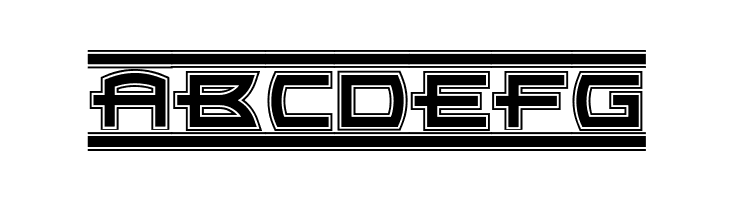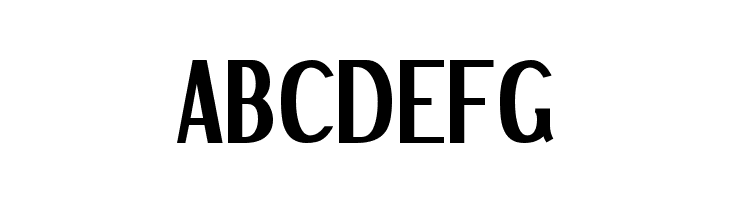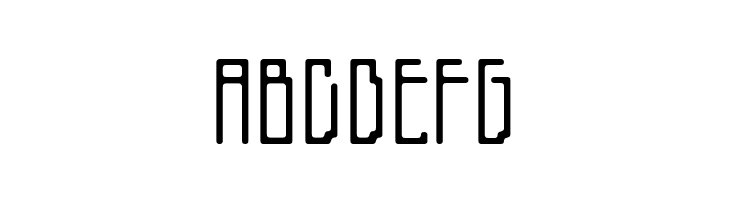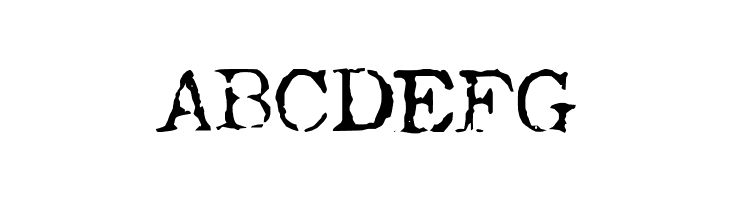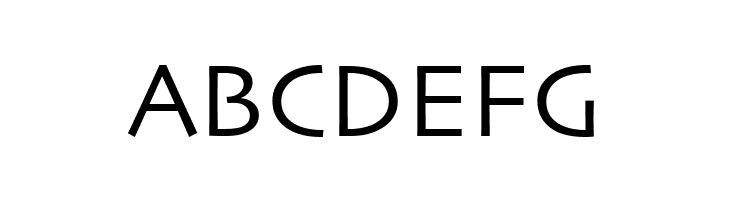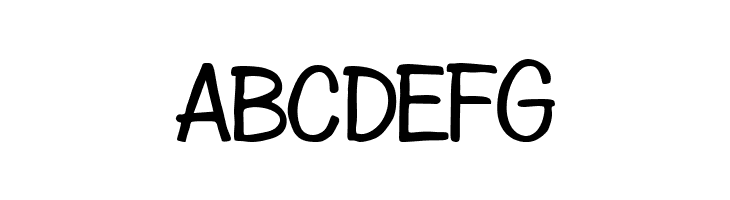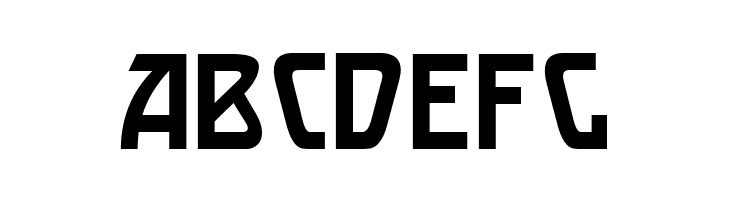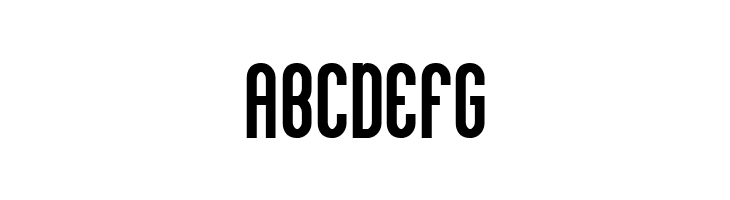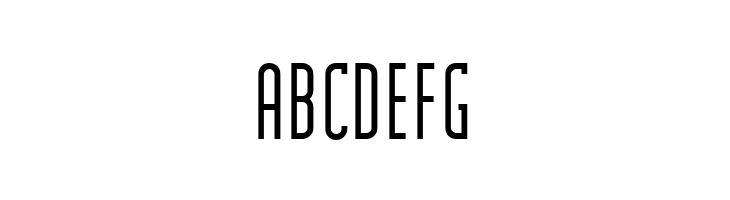
A playful, blotchy font with an artistic, ink-splatter appearance.
A bold, geometric font with Art Deco influences, ideal for striking headlines.
A futuristic, geometric font with circular cutouts and bold lines.
A playful, bold font with rounded, flowing strokes and a lively appearance.
A vintage, typewriter-style font with a distressed, rugged texture.
A bold, playful font with a hand-drawn, marker-like style.
A sleek, modern font with thin, elongated letterforms and a geometric structure.
A bold, angular font with a modern, geometric style.
An elegant italic font with smooth, flowing lines and moderate contrast.
A bold, geometric uppercase font with a modern and timeless design.
A sleek, modern font with elongated, narrow characters and a minimalistic style.
Bold, rounded characters within black squares for a playful, modern look.
A casual, handwritten font with a playful and informal style.
A classic serif font with elegant curves and refined details.